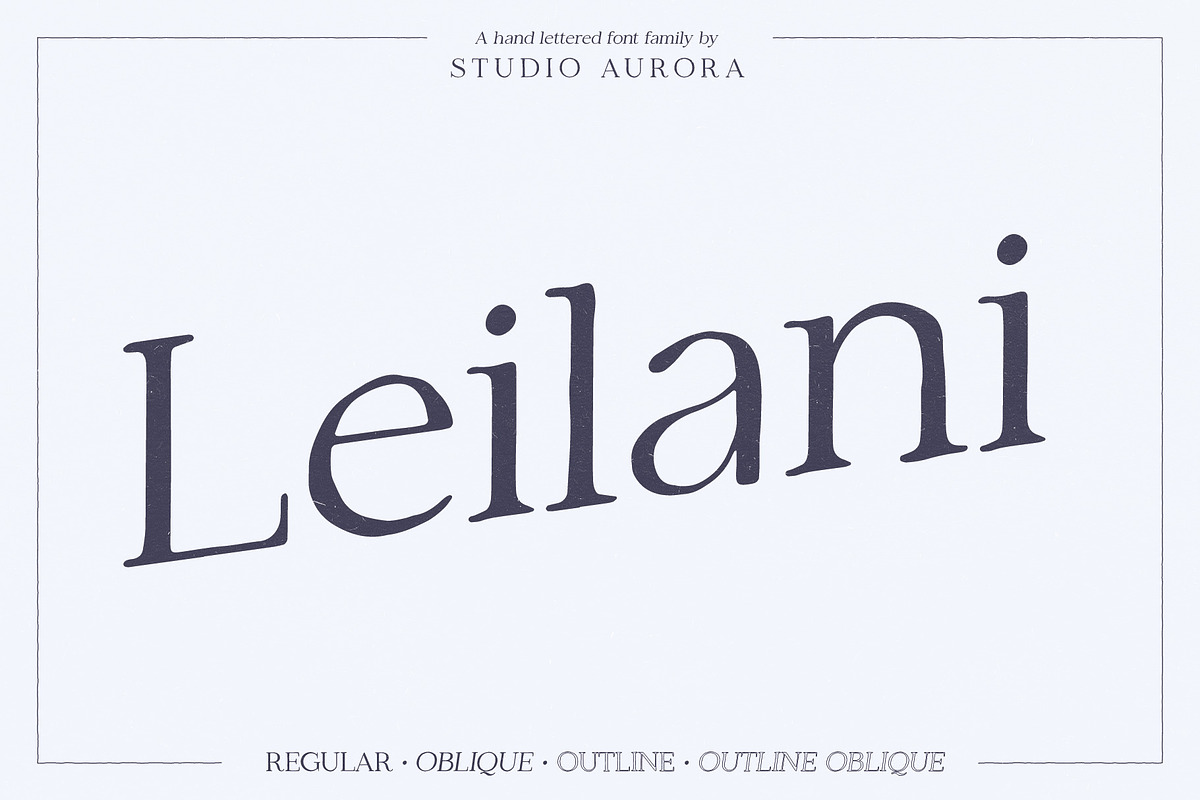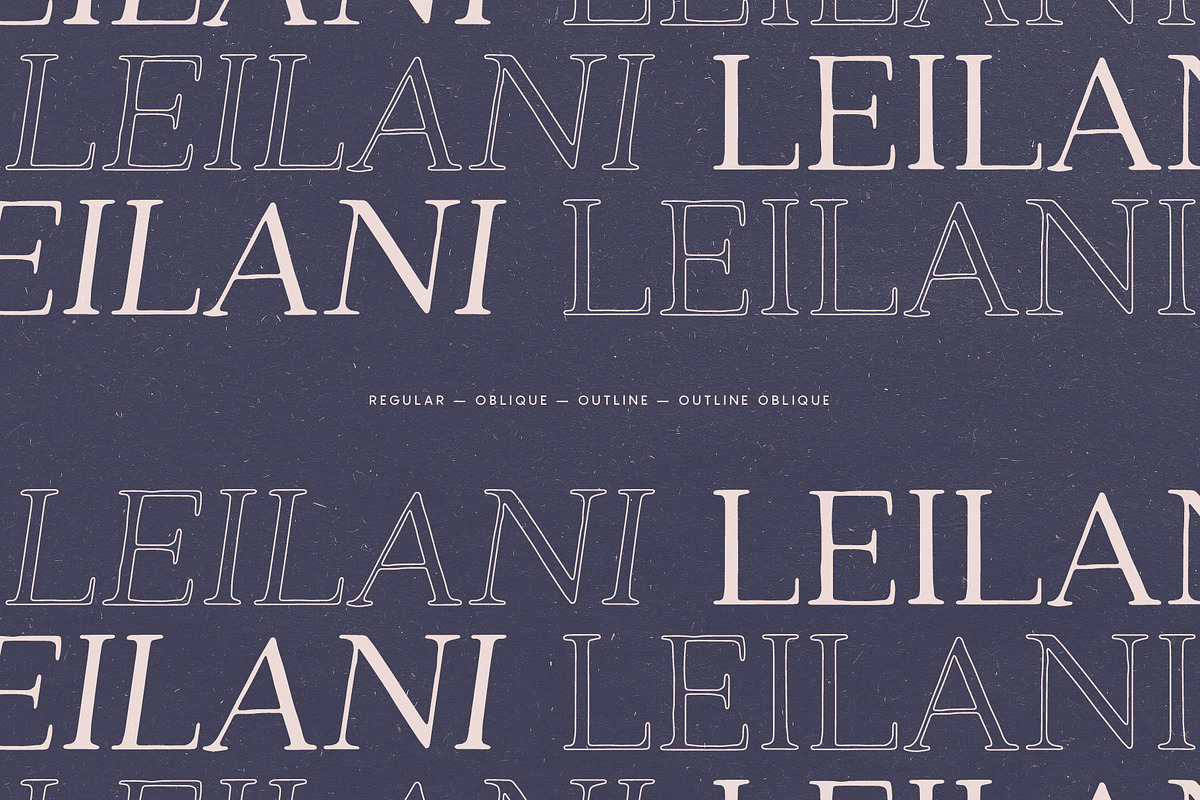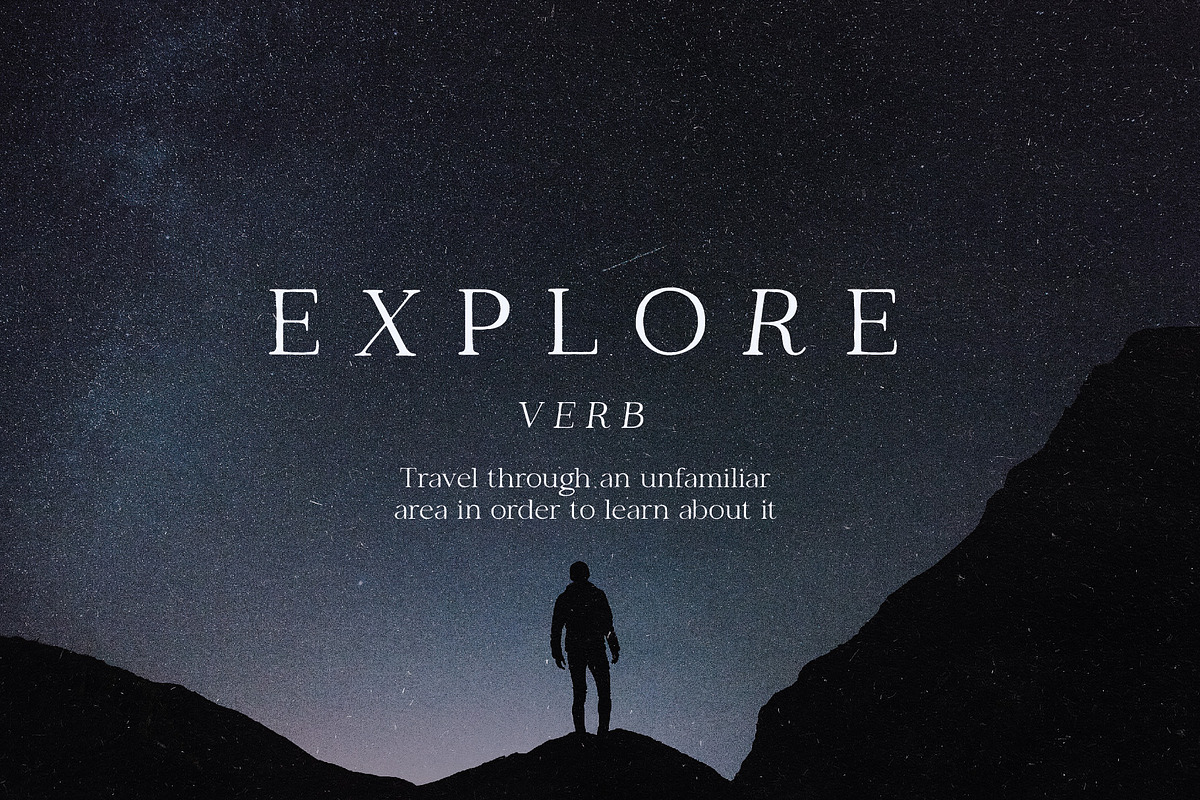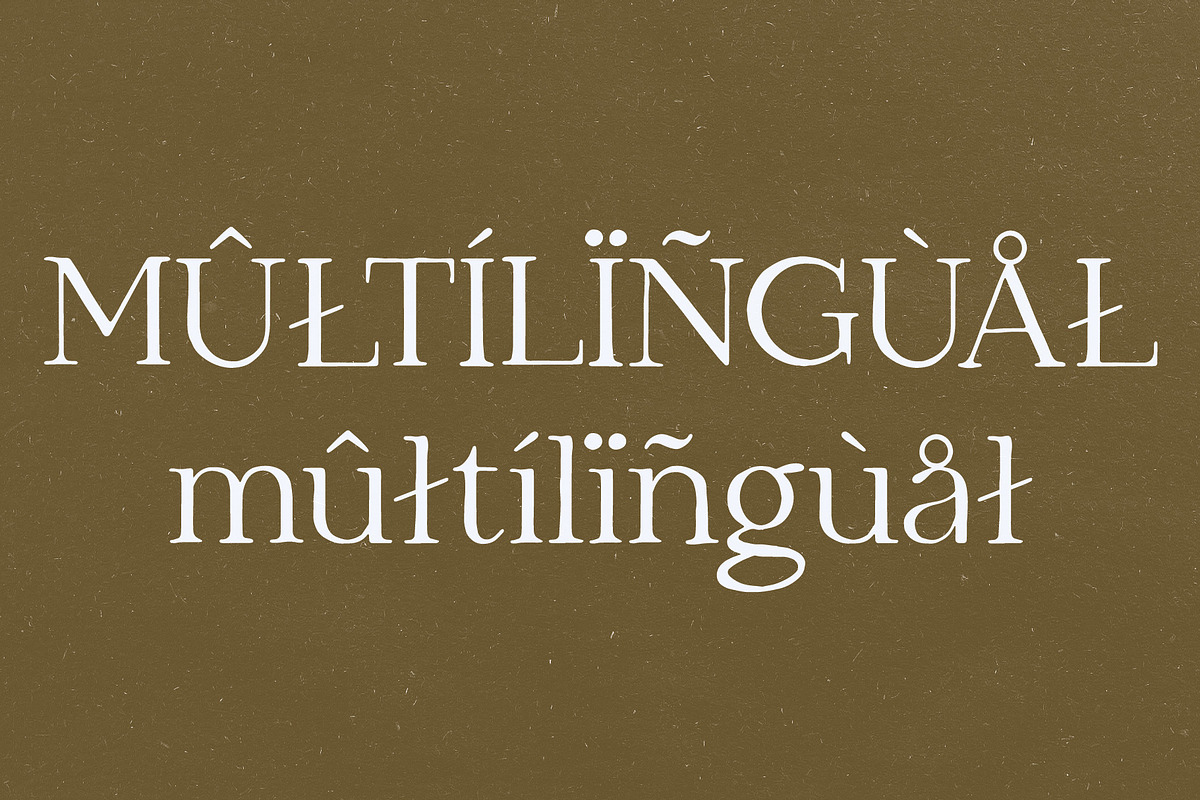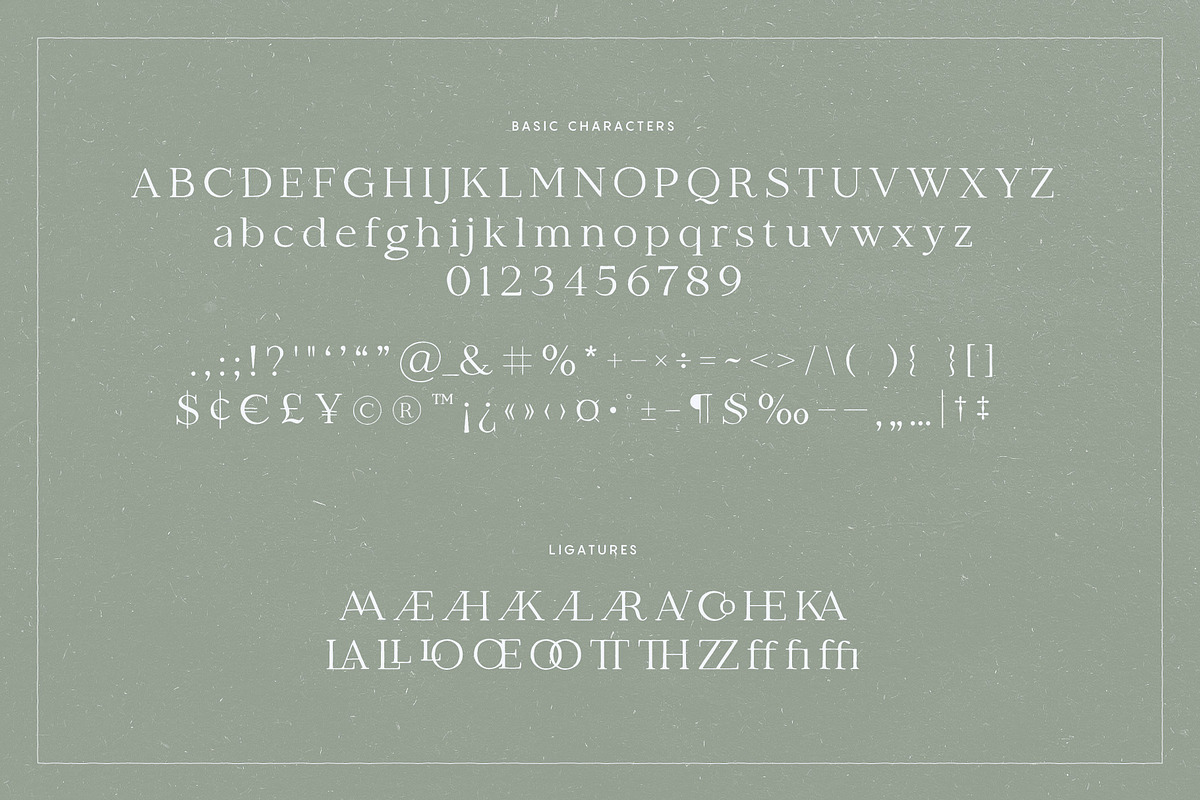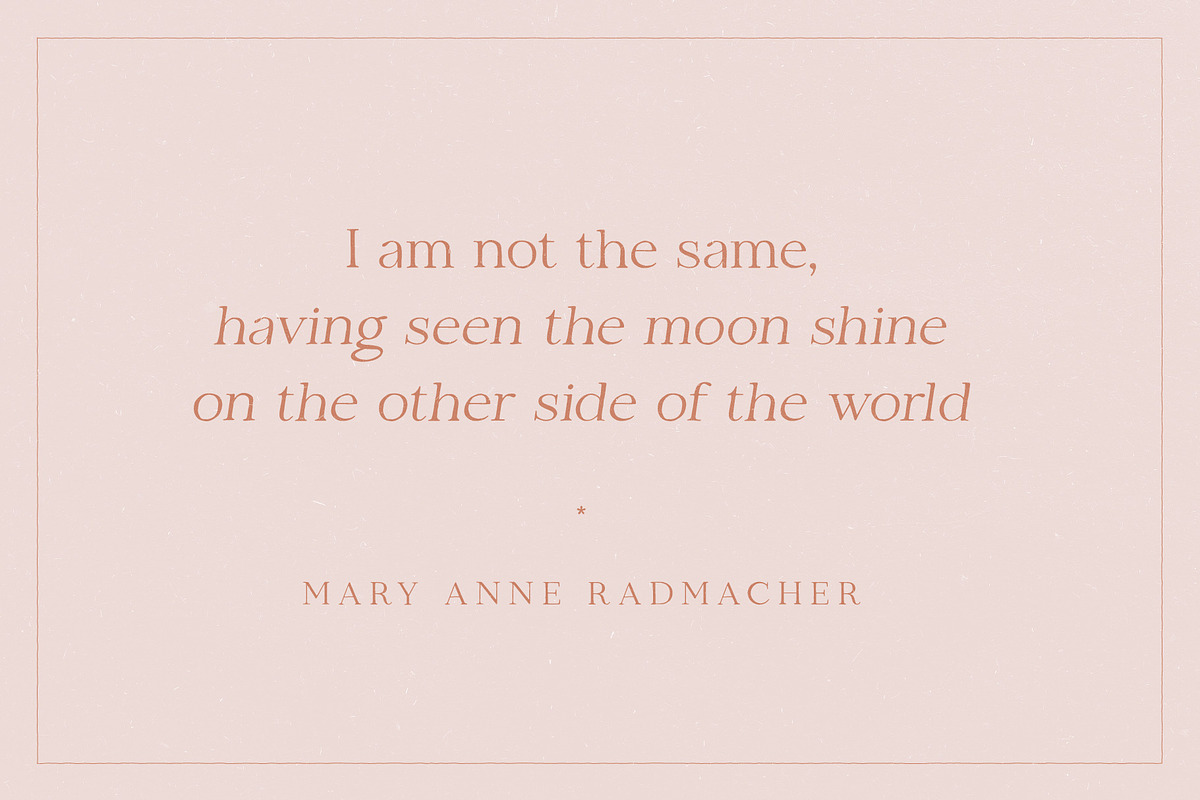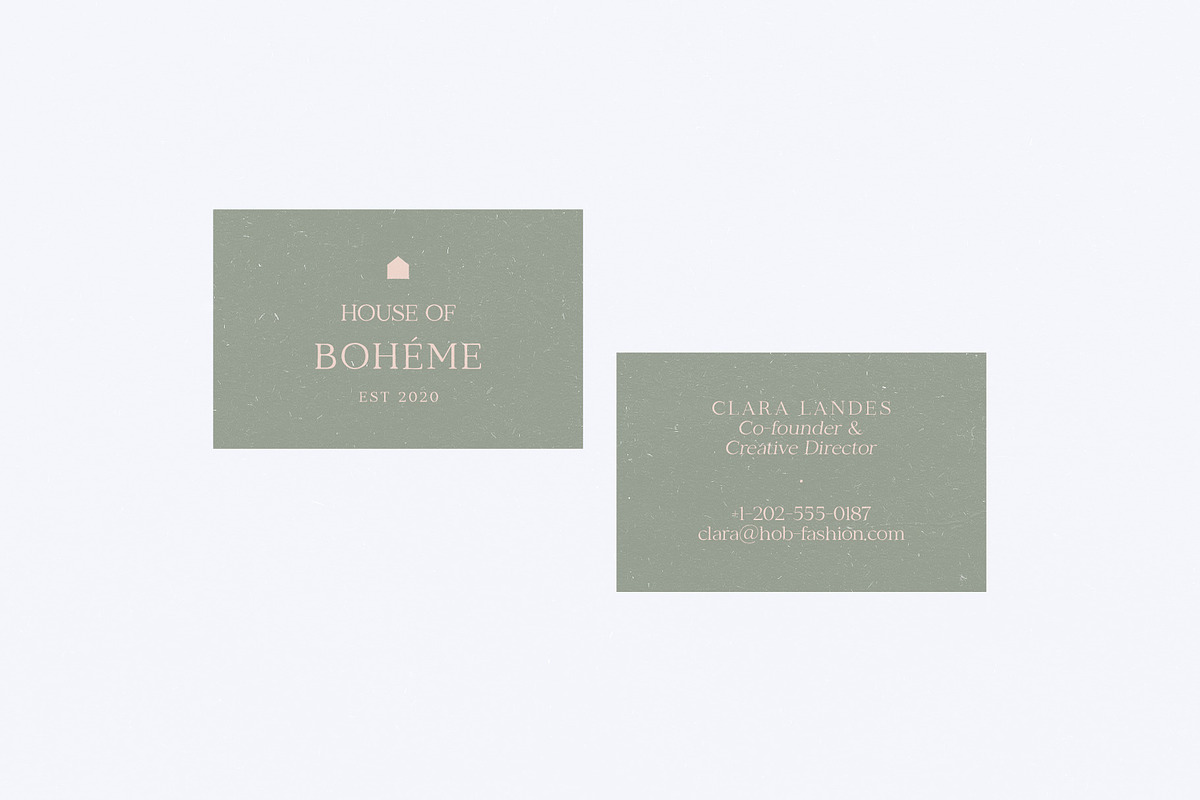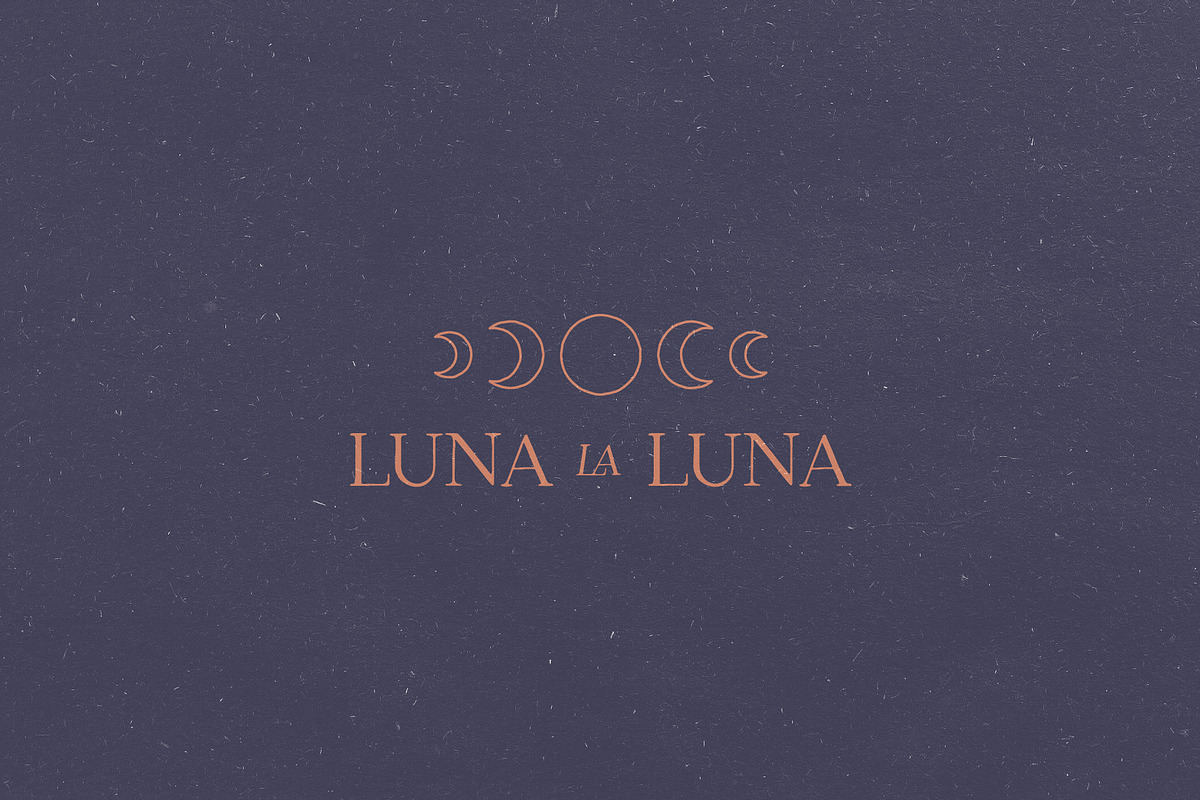
Leilani - Hand Drawn Elegant Serif
Introducing Leilani - a classic and elegant serif with a rustic hand-drawn finish.
Bringing a handmade quality, Leilani is perfect for magazines (titles and layouts), logos and branding, invitations (such as weddings), quotes, blog headers, posters, and advertising.
The typeface comes in 4 styles; Regular, Oblique, Outline, and Oblique Outline. As well as these fonts also included in the package are a number of hand-rendered illustrations that can be combined with the type to create uniquely crafted logo designs.
Language Support: Afrikaans, Albanian, Catalan, Danish, Dutch, English, French, German, Italian Norwegian, Portuguese, Spanish, Swedish and Zulu.